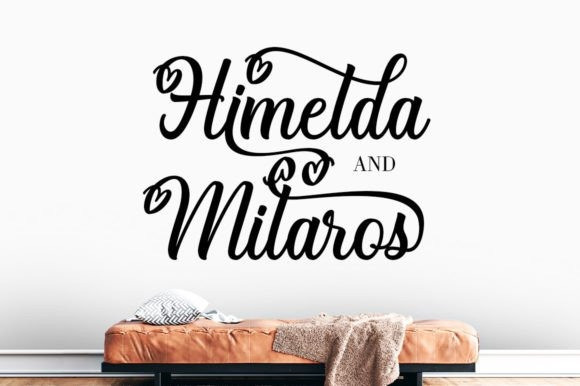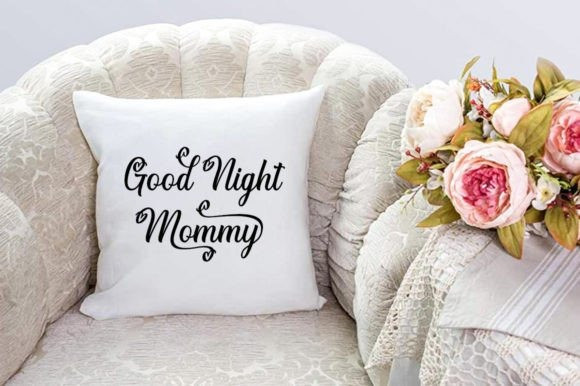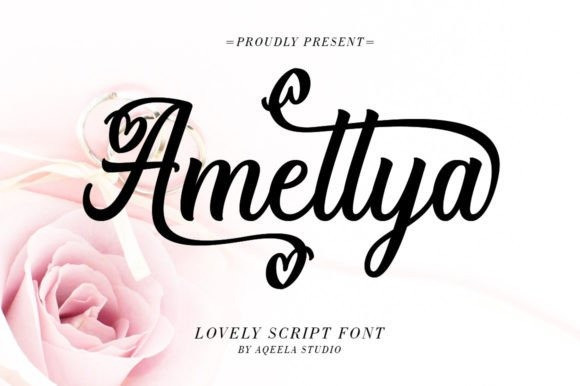
Amellya Font
Amellya Font is an adorable handwritten script font. It looks stunning on wedding invitations, thank you cards, quotes, greeting cards, logos, business cards, and every other design which needs a handwritten touch.